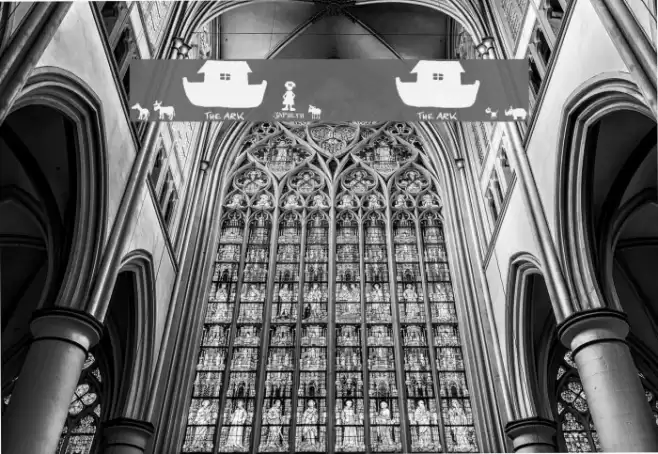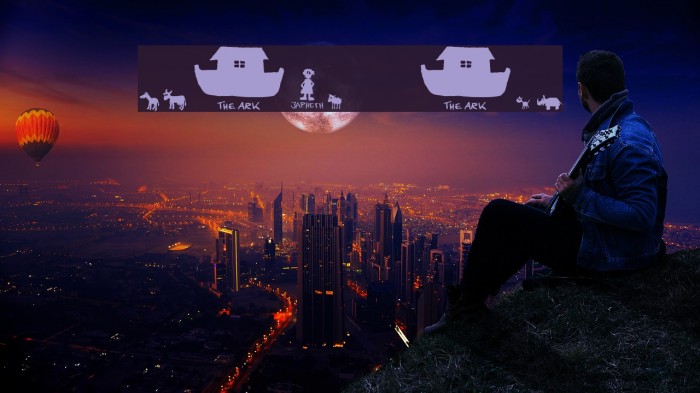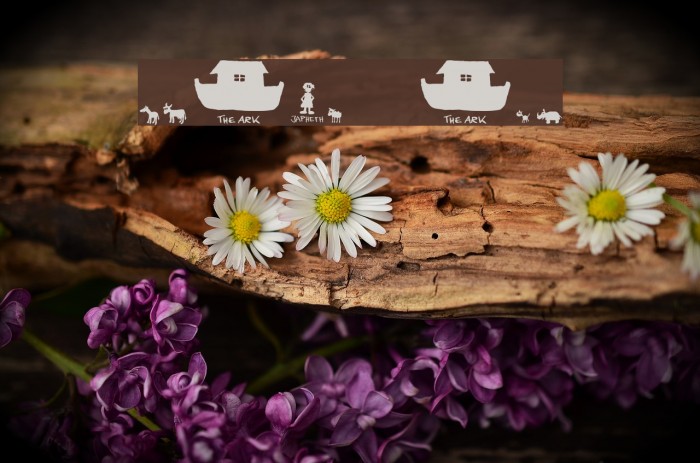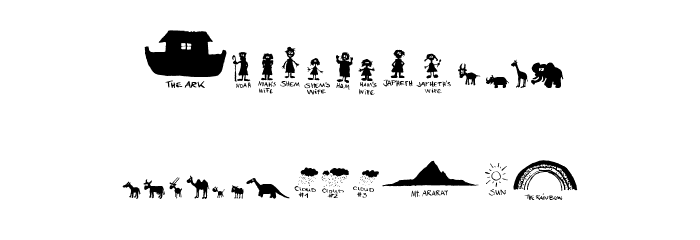
Noah's Ark Font
Noah's Ark Description
This font is a whimsical and illustrative typeface that incorporates playful and thematic elements inspired by the story of Noah's Ark. Each character is represented by a unique illustration, such as animals, the ark, and other related symbols. The design is highly decorative, making it more of an artistic representation than a traditional font. The characters are bold and filled with intricate details, capturing the essence of a storybook style. This font is not suitable for standard text but serves as a creative tool for thematic designs.
A decorative, illustrative font inspired by Noah's Ark, featuring playful and thematic characters from Dingbats fonts.
- Proposed Projects: Ideal for children's books, themed event invitations, educational materials, and creative storytelling projects.
- Use Case: Logos, Illustrations, Themed Designs